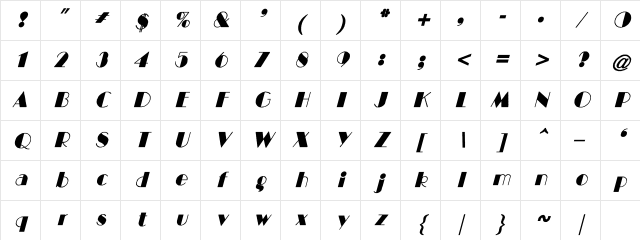
Complete BIGCITY-Normal Italic Regular glyph index. Displaying only characters natively supported by BIGCITY-Normal Italic Regular font.
BIGCITY-Normal Italic is a composed and adaptable typeface that performs quietly and consistently across a wide range of design contexts. The slanted form adds forward momentum and visual energy.